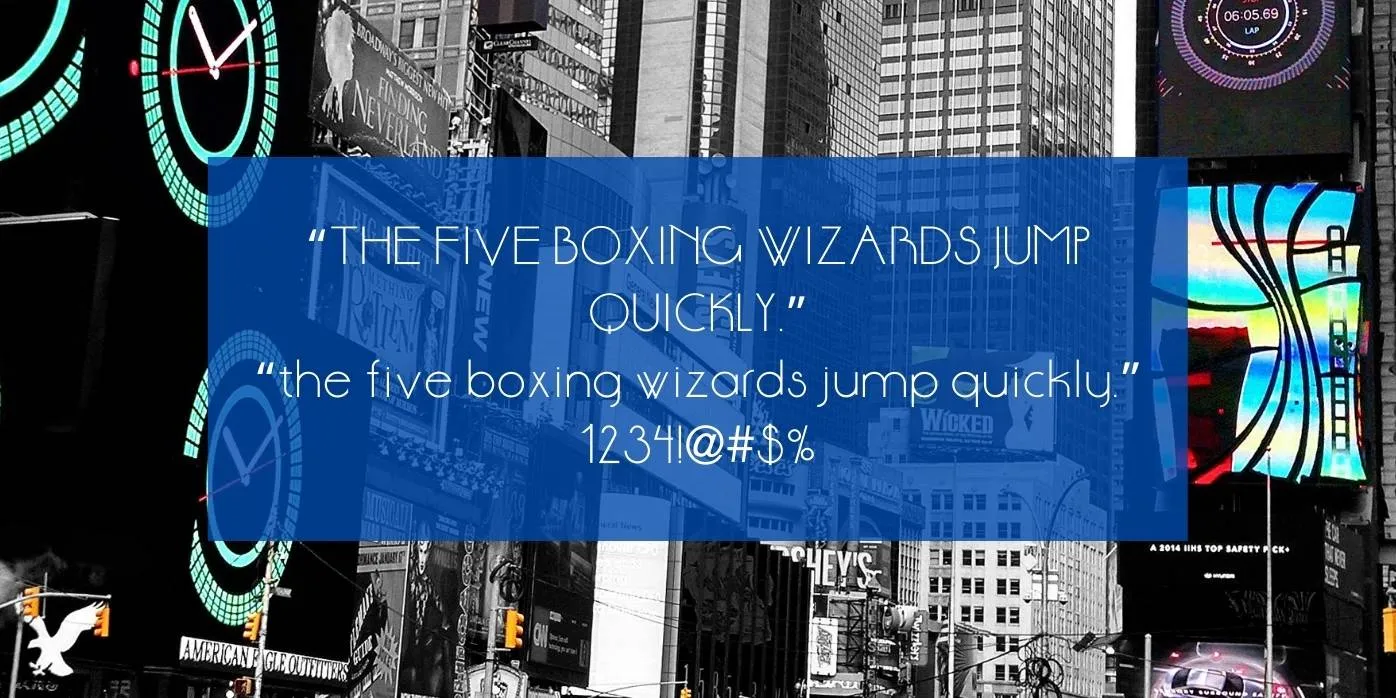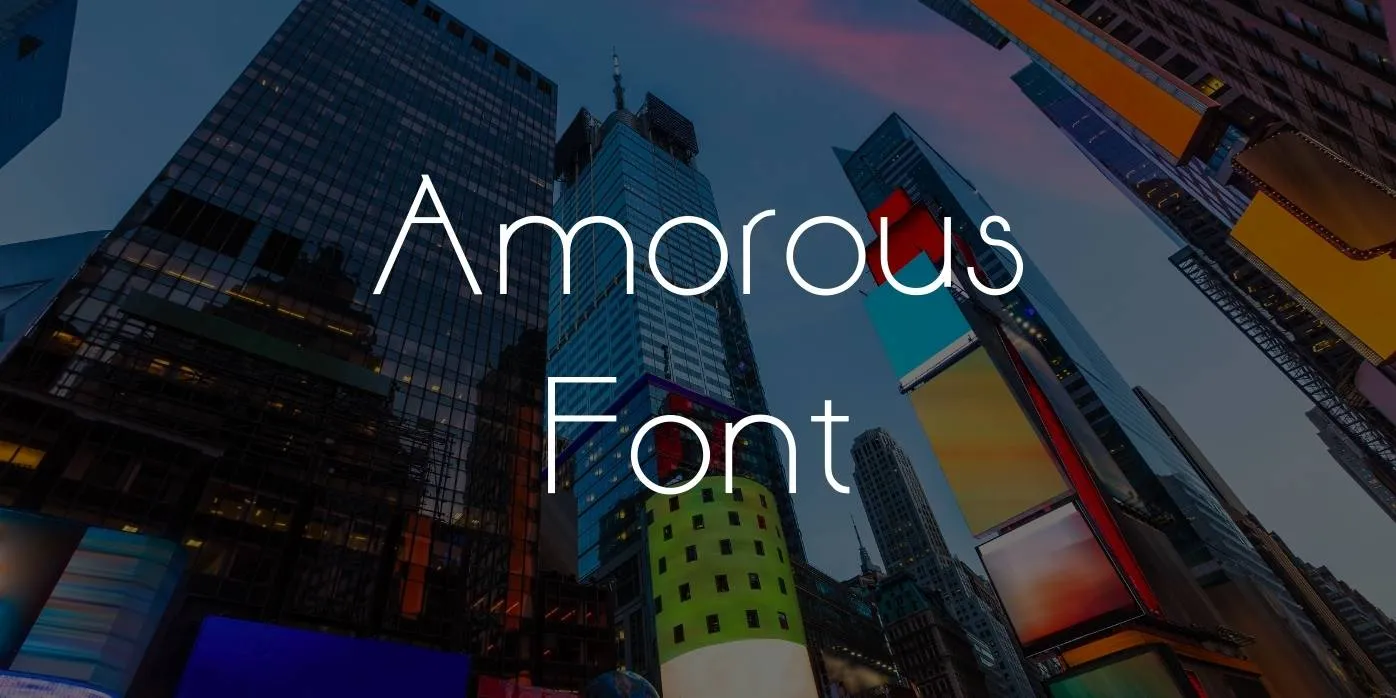
Amorous Font
Today, we introduce a very stunning and stylish typeface that is known by the name Amorous Font. This stylish family belongs to the fancy font. This stunning family was developed by Dexter De Guzman. This staggering font is an amazing typeface that comes with a very attractive design.
It consists of a set of uppercase, lowercase, and numeric characters. This font family is specially designed for those who want to use it in their personal as well as commercial projects. You can also use quanty font which is closest to this font family. This classy font has a very strong character that can easily be used in any textured design.
This family also supports multiple languages. You can use this stylish family for various purposes such as headlines, logos, wedding invitations, quotes, product packaging, headers, and much more. Its generator tool is perfect for many designs.